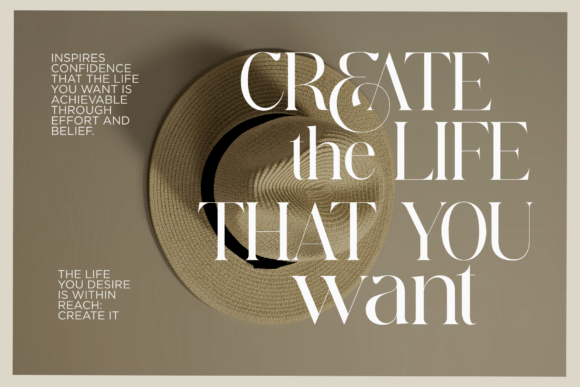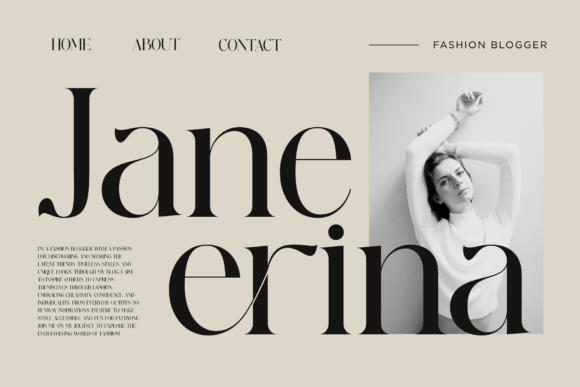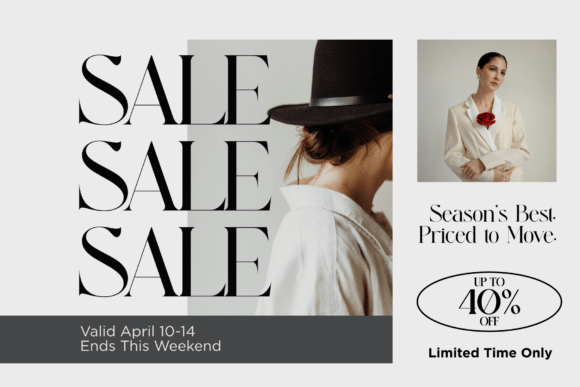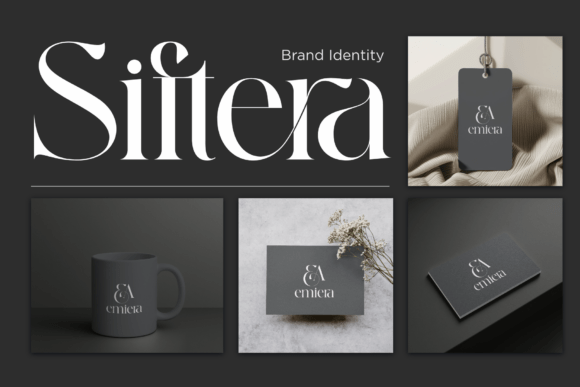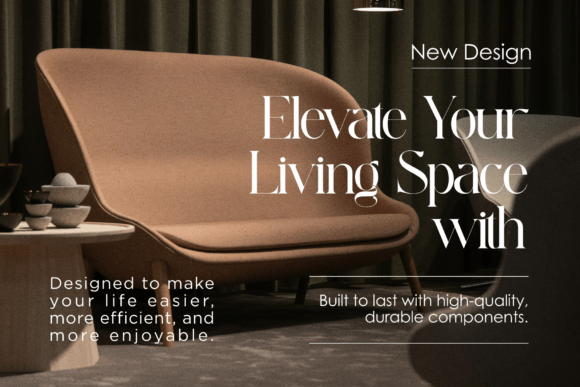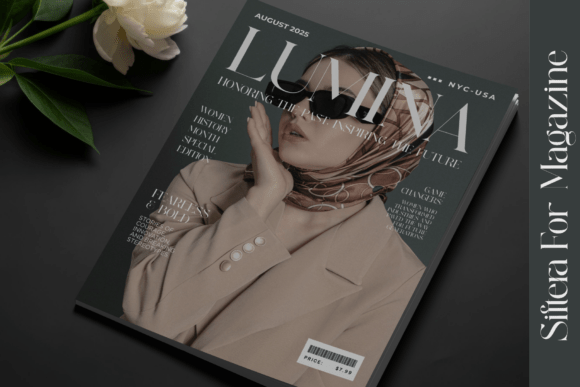
Introduction to Siftera Font
Have you ever stared at a blank design canvas, feeling the weight of a creative project’s expectations? The cursor blinks impatiently, urging you to bring your vision to life. It’s in these moments that the right font can make all the difference. For designers seeking a high-quality, elegant solution, the Siftera Font stands out as a reliable choice.
With its unique blend of classic serif structure and warm, rounded terminals, Siftera Font offers a level of sophistication that’s both approachable and refined. Whether you’re working on a design project with a transparent background or seeking a versatile design resource, this font’s subtle yet distinctive character is sure to elevate your work. And the best part? It’s available for a free download, making it an invaluable resource for designers looking to add a touch of elegance to their creations.
- Unique characteristics include a modern, clean design and a wide range of styles and weights to suit diverse creative projects.
Honest Review: Siftera Font
As a designer, I’m always on the lookout for high-quality fonts to elevate my creative projects. I recently stumbled upon the Siftera Font, and I’m excited to share my honest review with you.
- ✨ Unique and modern design: The Siftera Font boasts a sleek, minimalist aesthetic that’s perfect for contemporary designs.
- ⚠️ Limited font weights: While the Siftera Font is a solid choice for many projects, it may not offer the same level of depth and variety as more comprehensive font families.
- ⚠️ Limited customization options: Some designers may find the font’s design a bit too rigid, with limited opportunities for customization.
Overall, I’m impressed with the Siftera Font’s potential as a design resource. Its unique design, wide language support, and transparent background make it a great choice for many creative projects. While it may have some limitations, the Siftera Font is definitely worth considering for your next design endeavor.
The Siftera Font is a versatile design resource that can be used in a variety of creative projects, including logos, brochures, and social media graphics. Its high-quality, transparent background makes it a great choice for designers who want to create visually appealing and professional-looking designs.